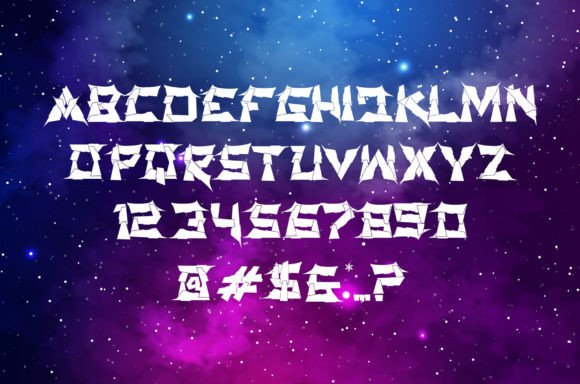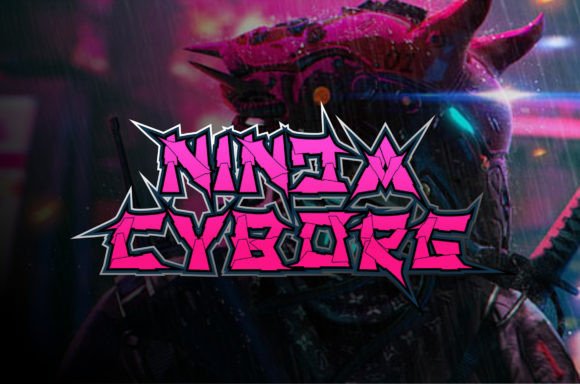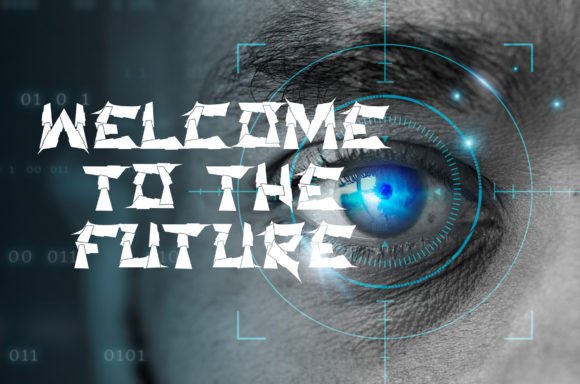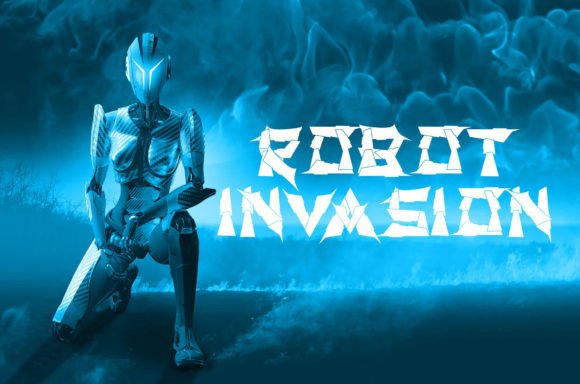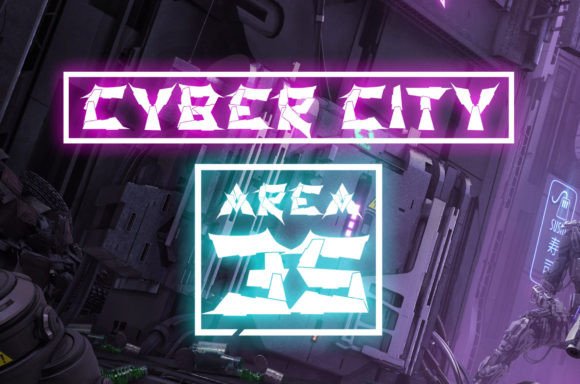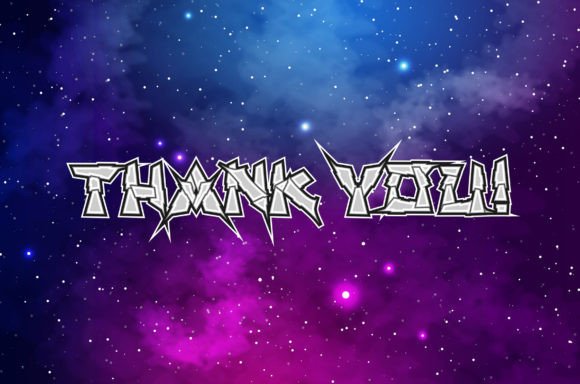
Introduction to Axeleon Font
Axeleon is a cool, abstract display font.
Its unique, geometric style is perfect for a wide spectrum of applications ranging from metal album covers to posters, stickers, hoodies, or anything that needs daring typography .